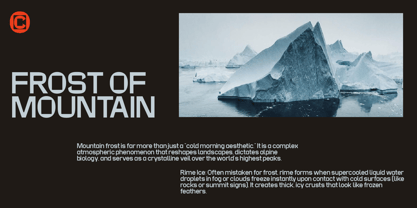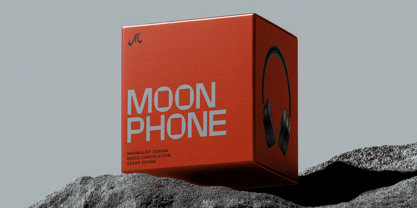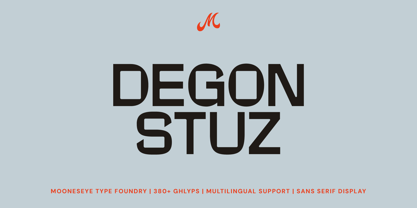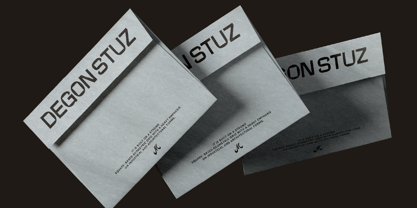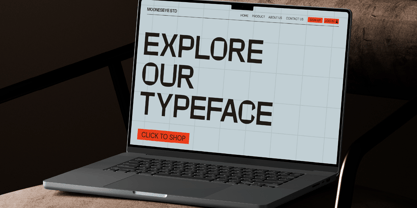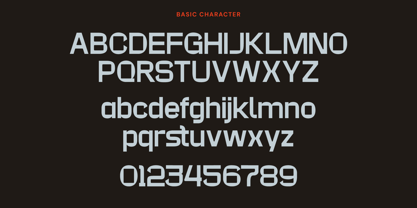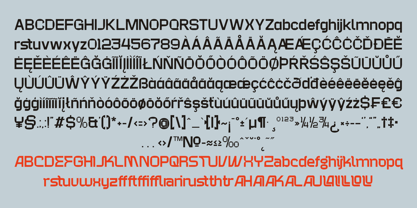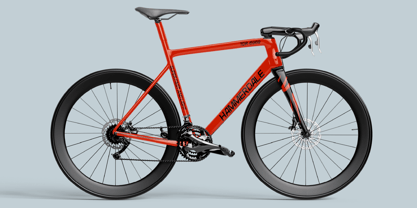
Degon stuz
by Mooneseye Studio
The Degon stuz Font Family was designed by Elhaq Farid and published by Mooneseye Studio. Degon stuz contains 2 styles and family package options.
Degon Stuz is a heavyweight geometric powerhouse built on an industrial grid. It moves away from traditional curves to embrace a bold, boxy, and architectural silhouette. This is the font you choose when your design needs to feel solid, masculine, and high-tech. Whether you are branding the next big AI startup or designing an Esports jersey, Degon Stuz commands immediate attention.
The true "soul" of this font lies in its ultra-modern ligatures. These unique connections allow you to transform simple typing into a custom, high-end logo with a single click. With its sharp angled cuts and high x-height, it creates a "wall of text" effect that is perfect for aggressive headlines and futuristic layouts.